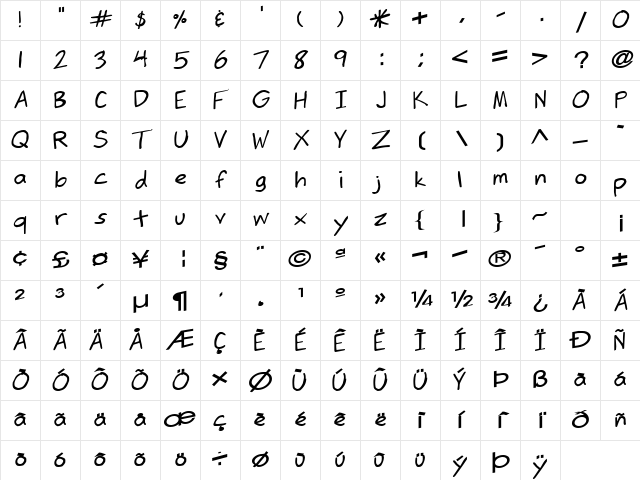
PasserBy41 Bold
Design Context for PasserBy41
PasserBy41 is a composed and adaptable typeface that performs quietly and consistently across a wide range of design contexts. Its bold stroke weight gives it real presence on the page.